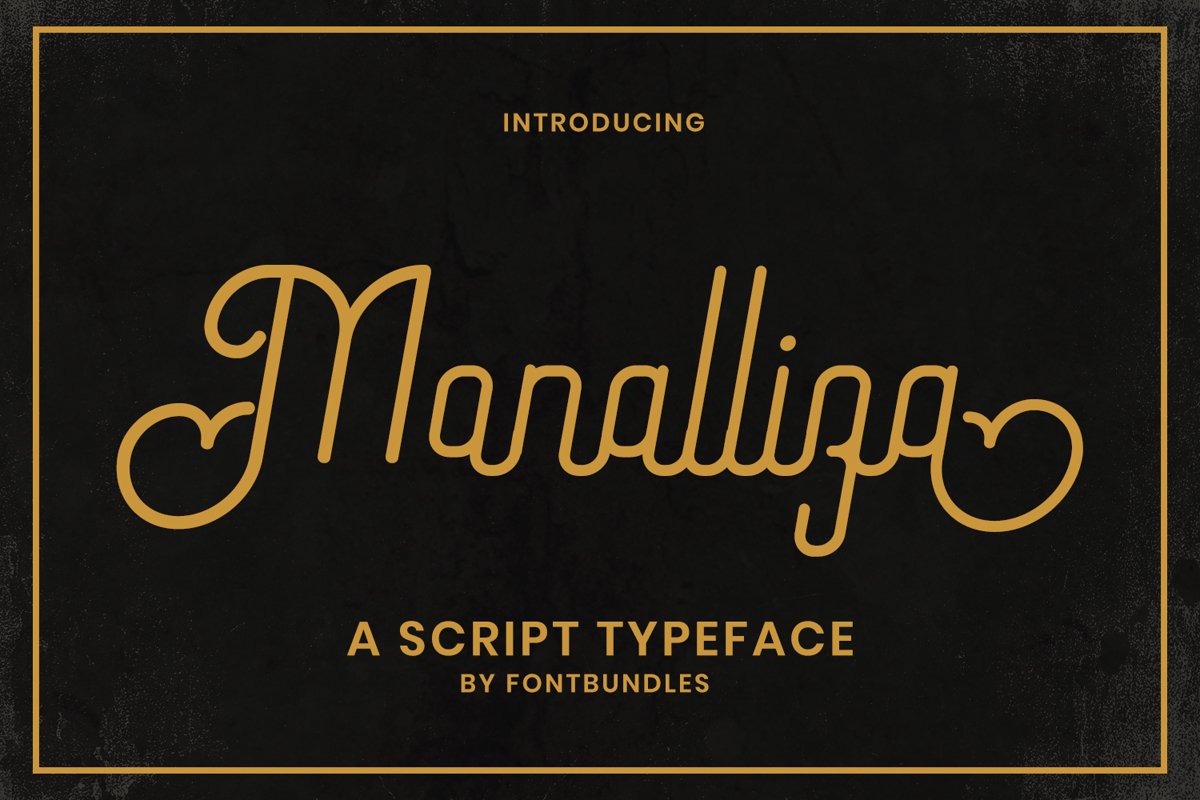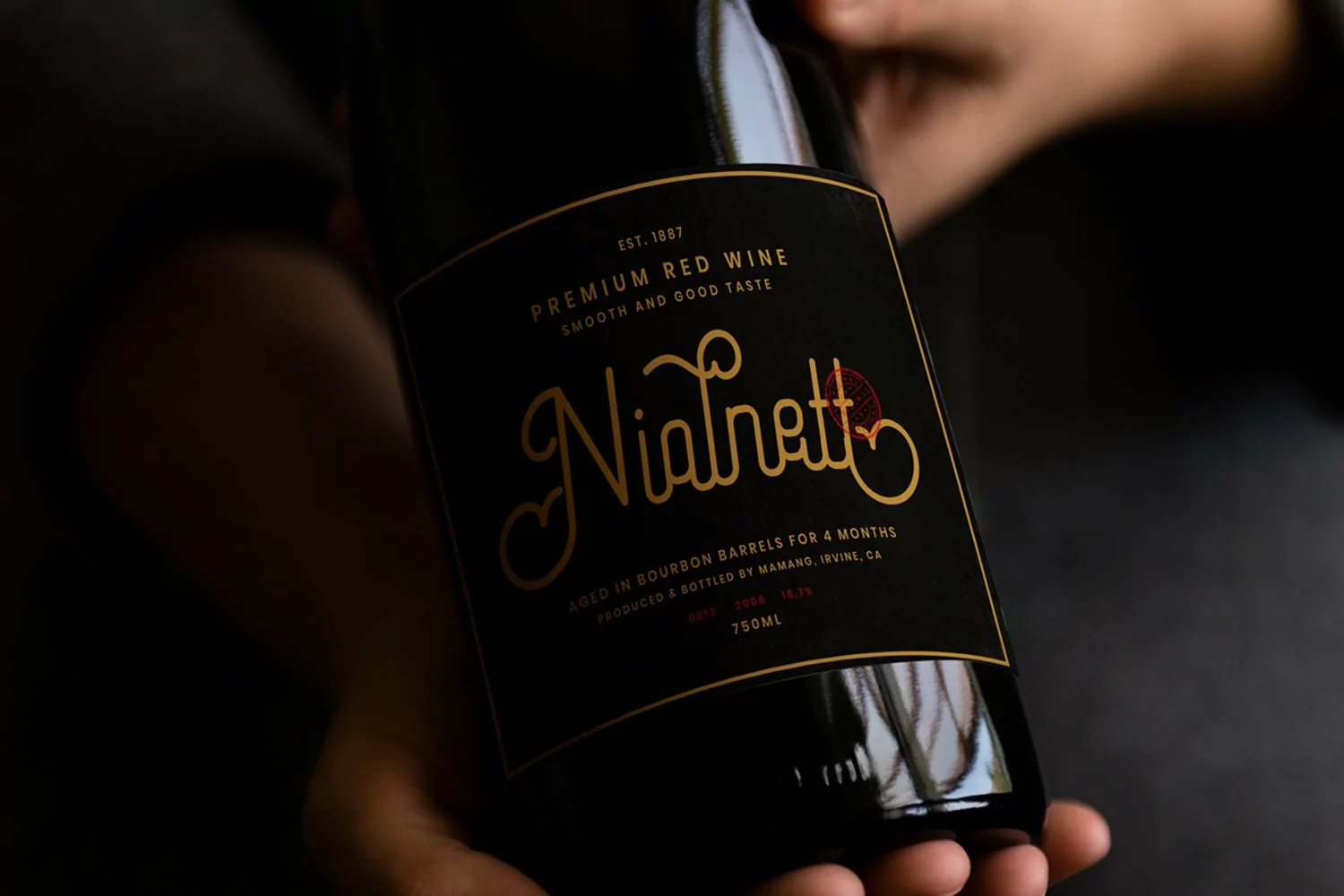
Monalliza
Monalliza is a Script typeface. Perfect for logo, logotype, display, quotes, label, emblem, badges, packaging, merchandise, header, tittle, book cover, business card and many more.